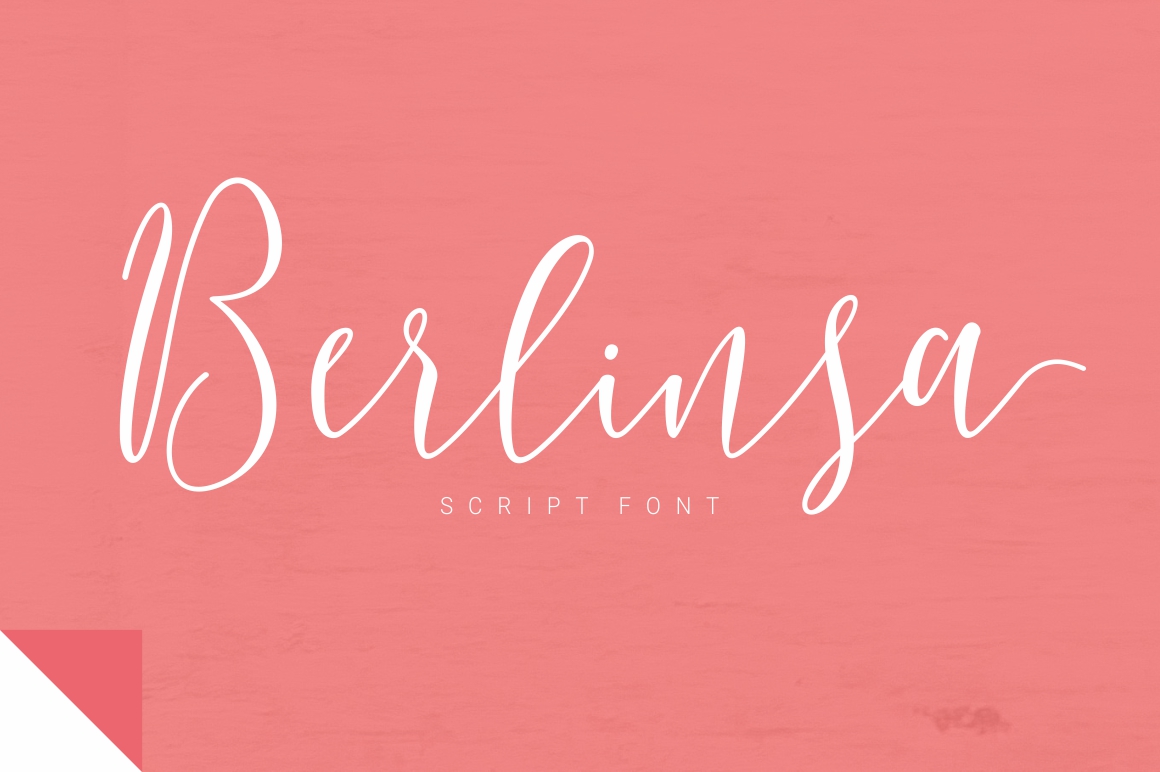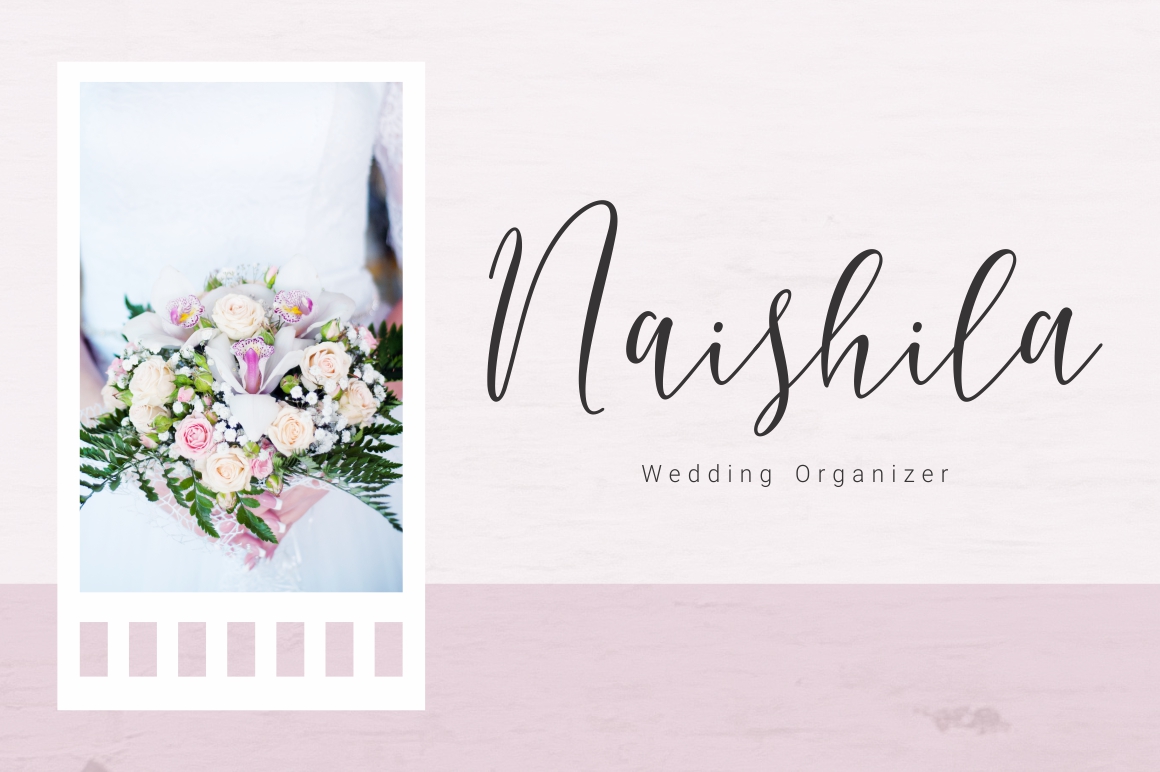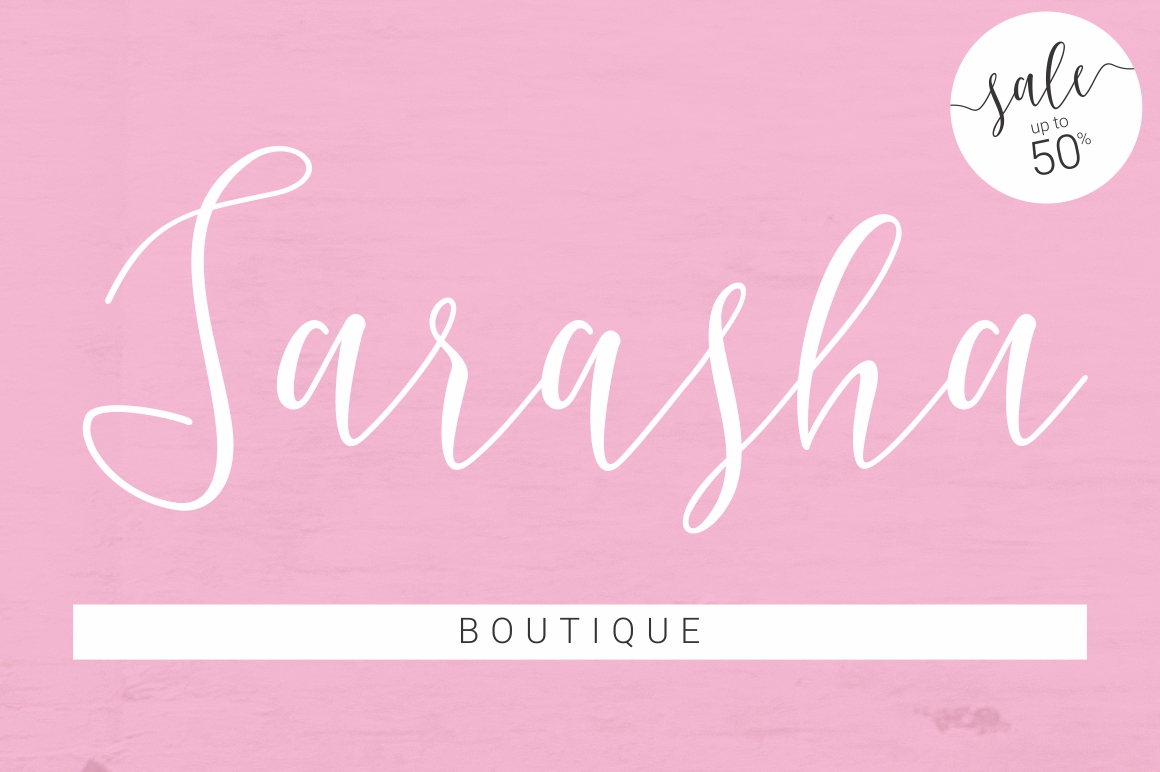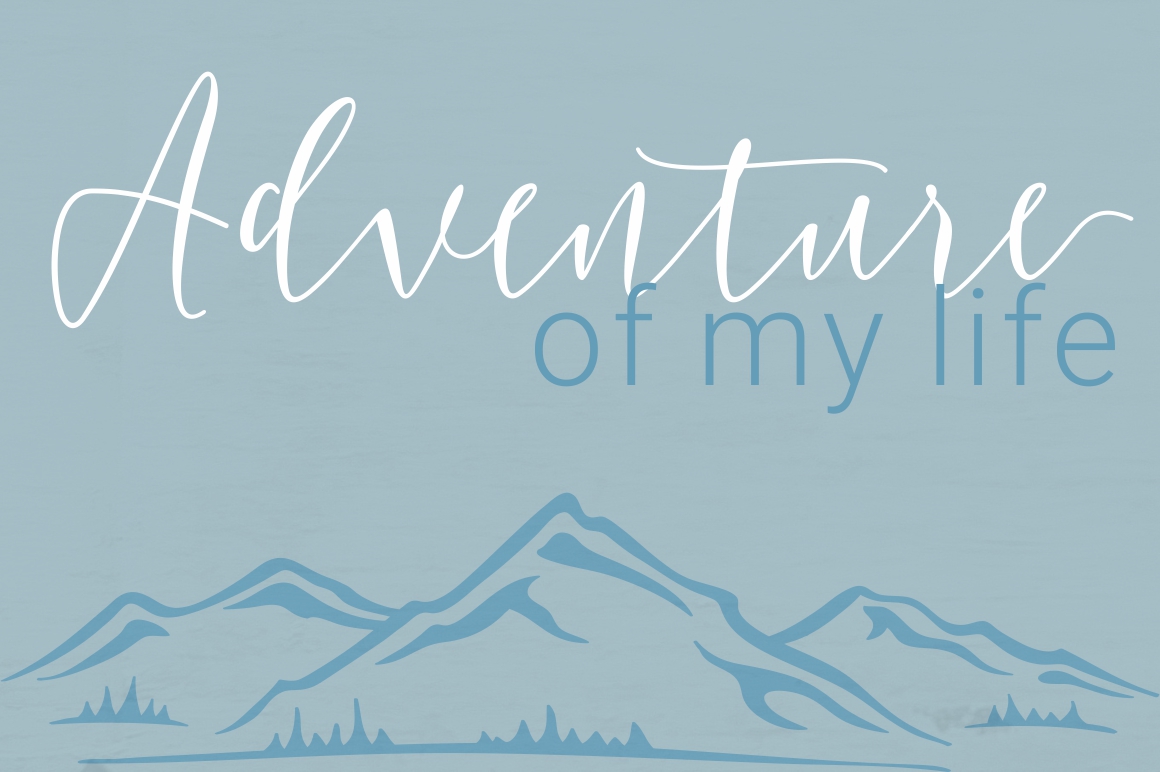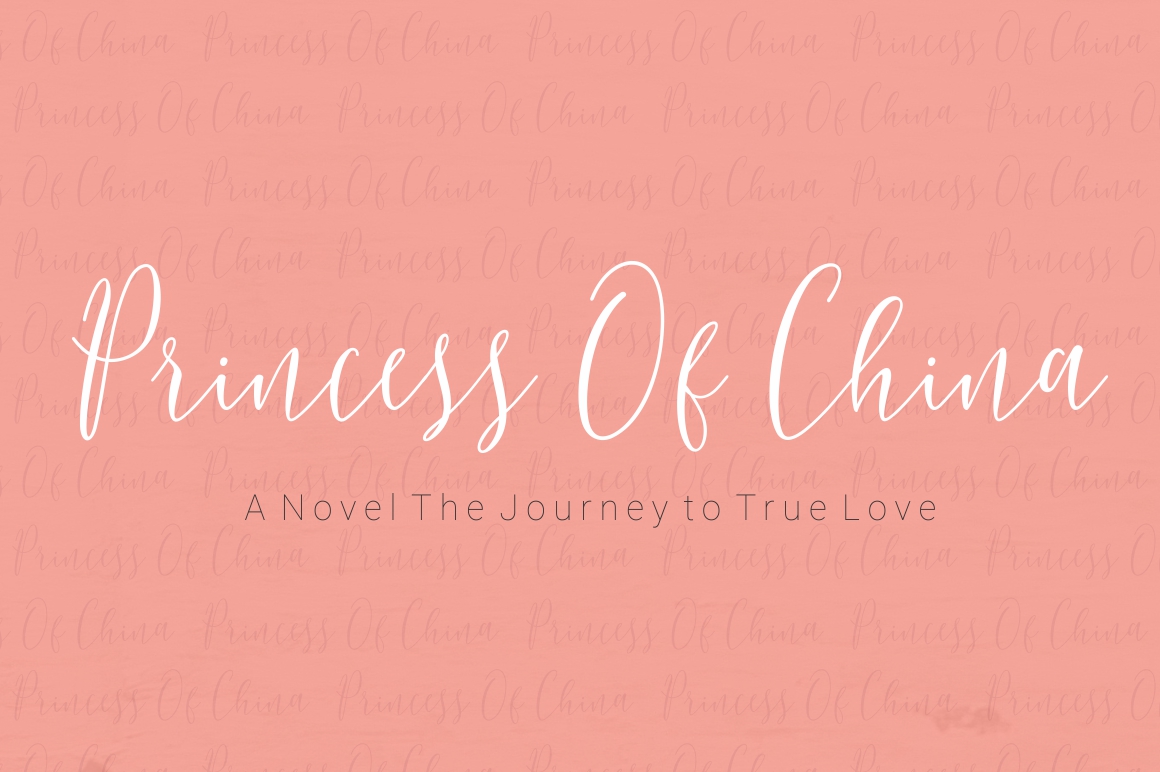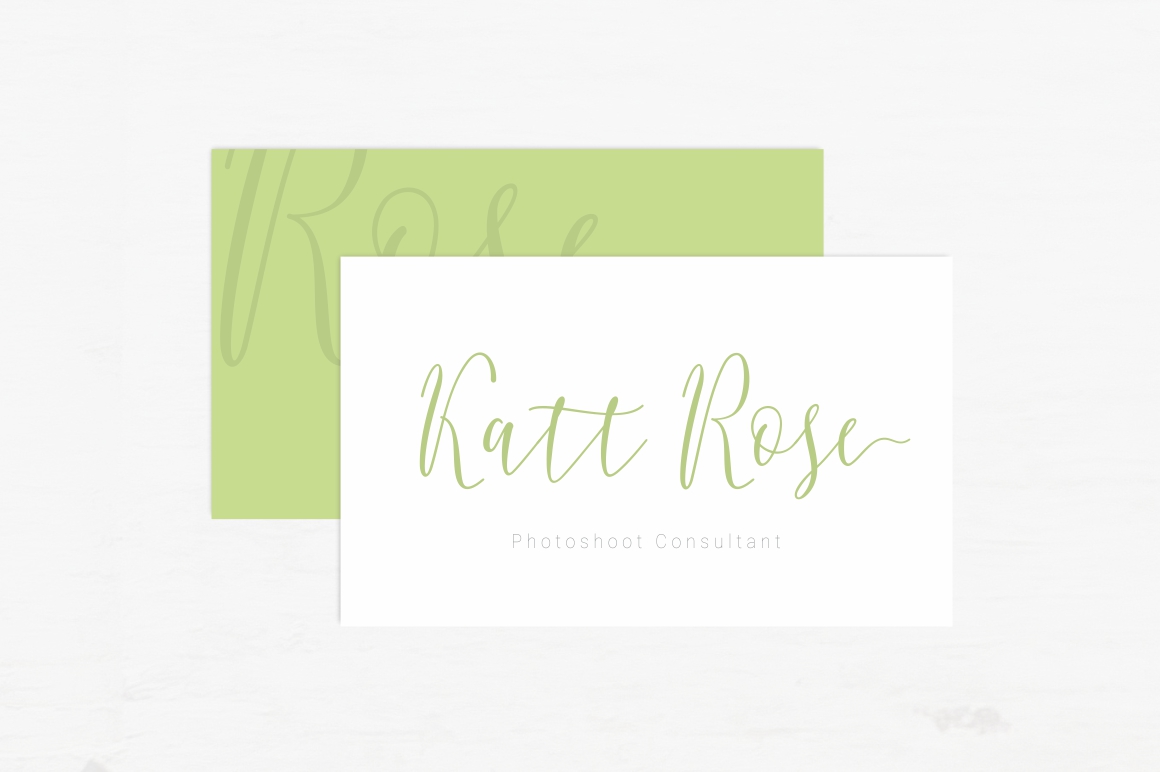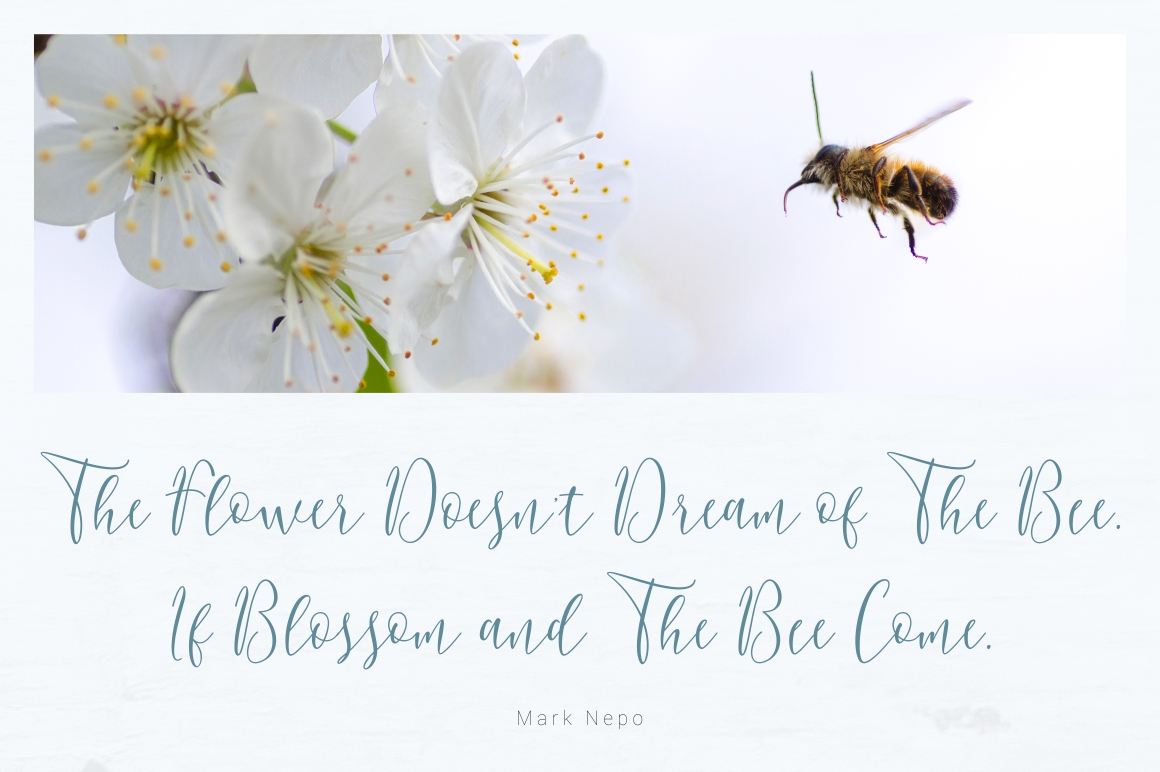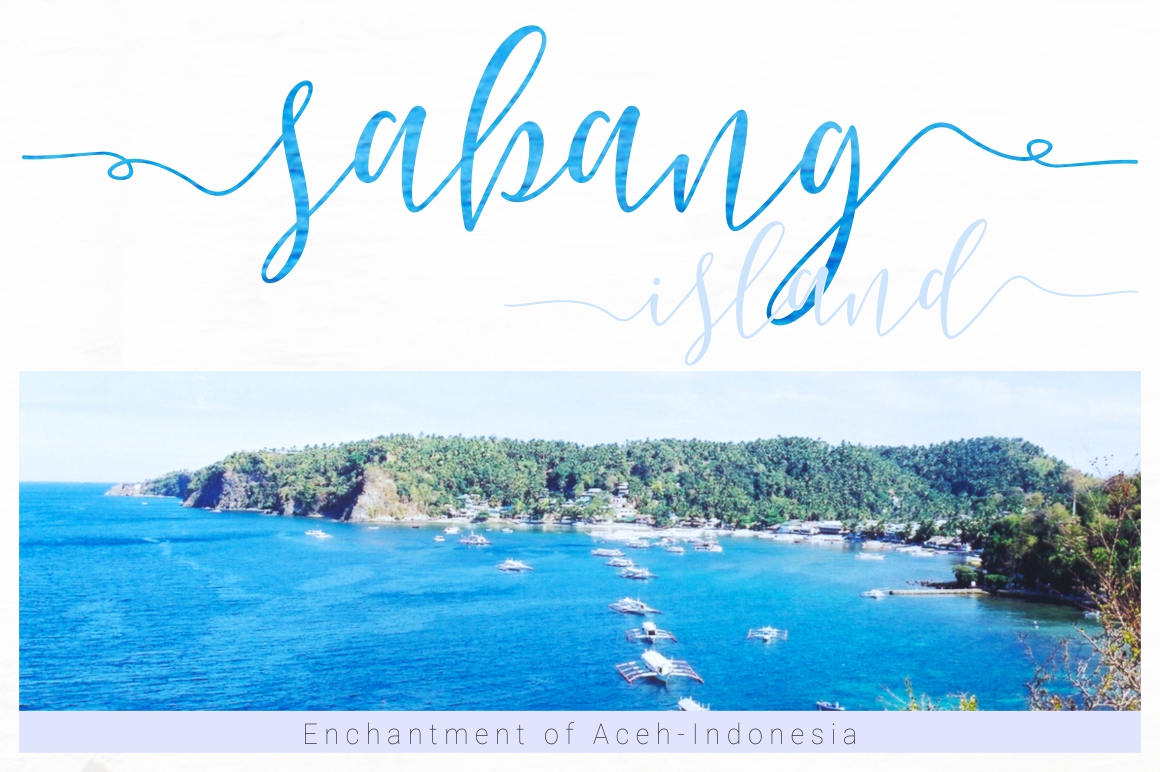
Berlinsa Font
About Berlinsa Font
Berlinsa Script is a great addition to your font collection. It’s a modern handwritten script that has given a smooth character.